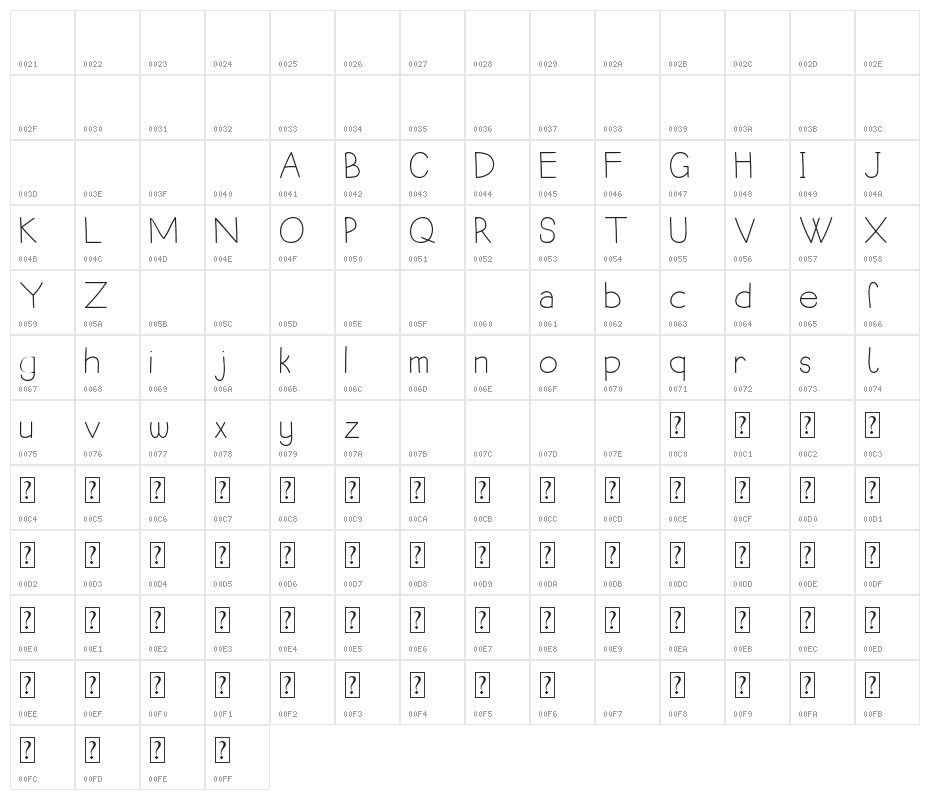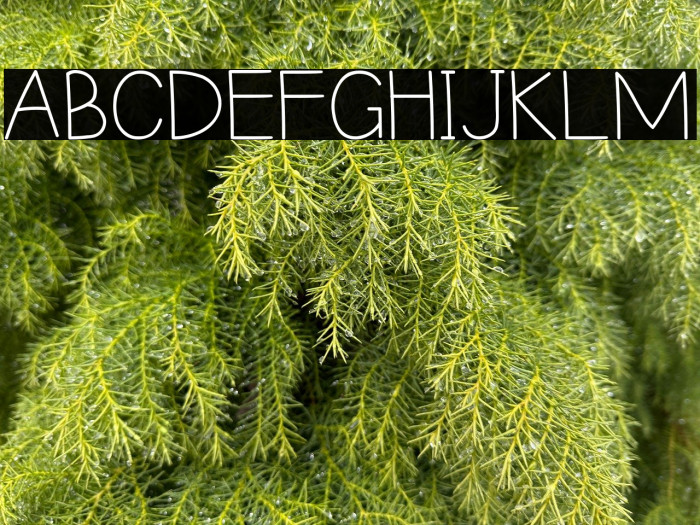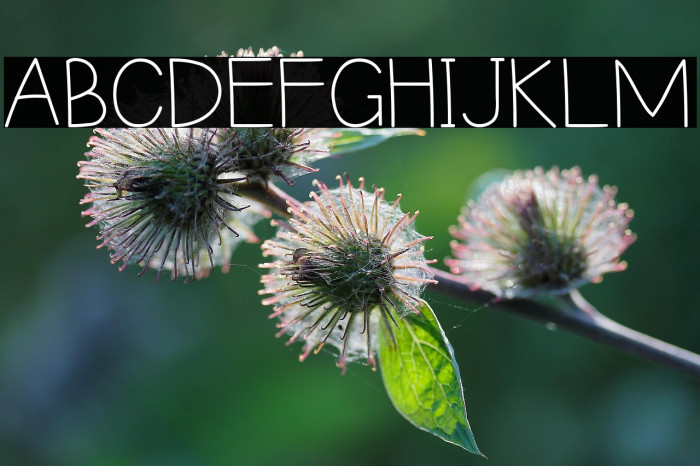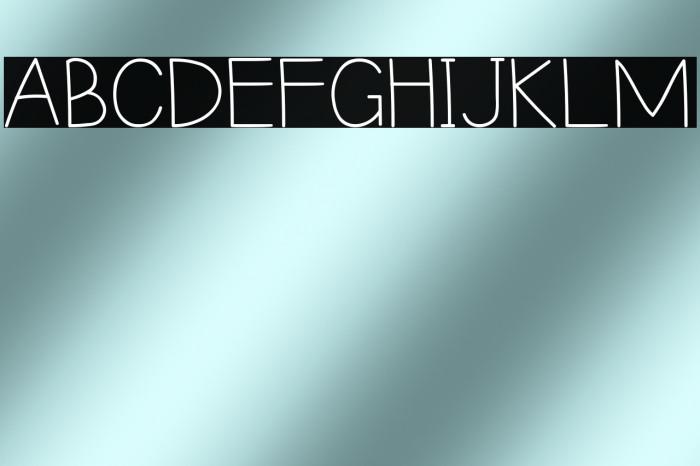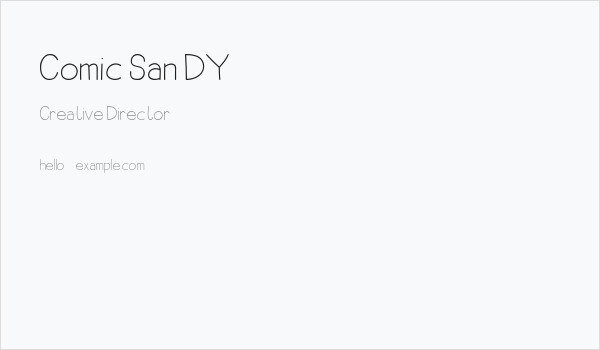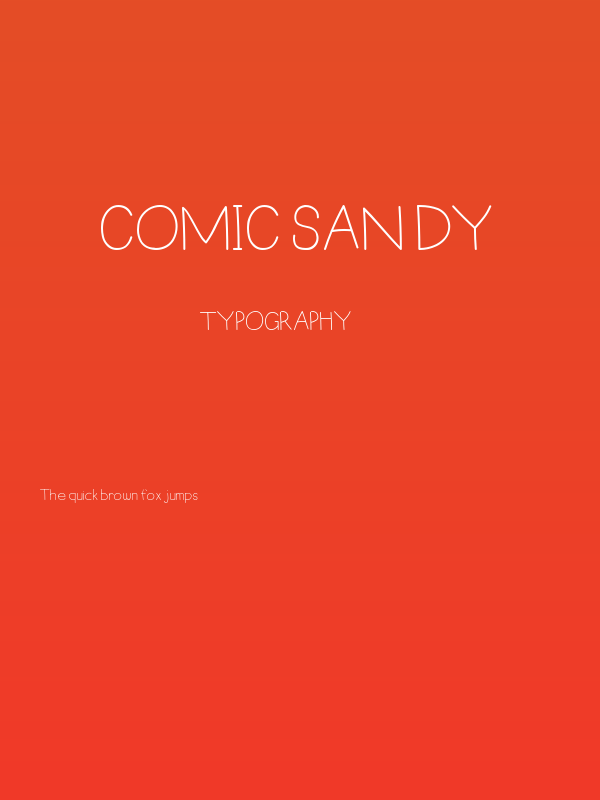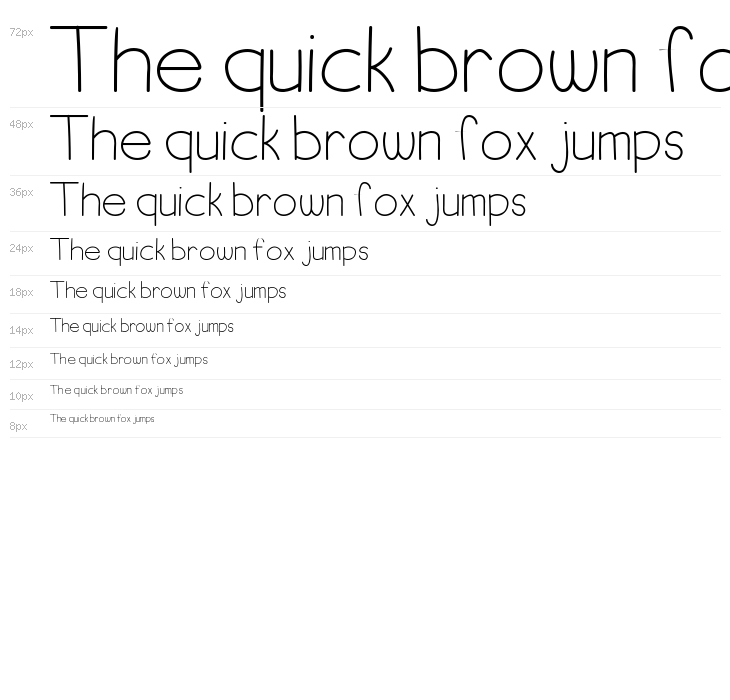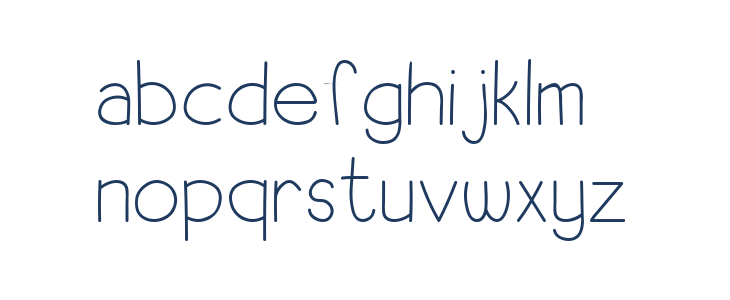
Comic San DY Font
Comic San DY Description
This playful and informal font features a handwritten style with a casual, friendly appearance. The letters are rounded and slightly irregular, giving it a whimsical and approachable feel. The uppercase and lowercase characters maintain a consistent style, with smooth curves and a relaxed structure. The font's simplicity and charm make it suitable for a variety of lighthearted and creative projects. Its legibility and distinct personality ensure it stands out in both digital and print media.
| Proposed Projects | Ideal for children's books, comic strips, casual invitations, and playful branding. |